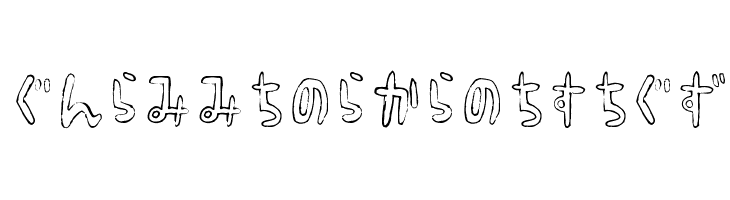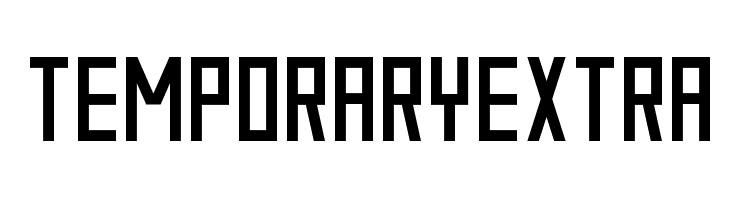
A playful, hand-drawn font with a whimsical and casual style.
A bold, geometric font with a modern, industrial style.
A geometric, block-like font with a digital, futuristic aesthetic.
A modern, geometric font with clean lines and balanced spacing.
A playful and whimsical font with bold, curvy letterforms and decorative elements.
A geometric, pixelated font with a retro, digital aesthetic.
A whimsical, hand-drawn font with playful and irregular shapes.
A playful, bold outline font with a cartoonish style.
A playful, bold handwritten font with a casual and friendly style.